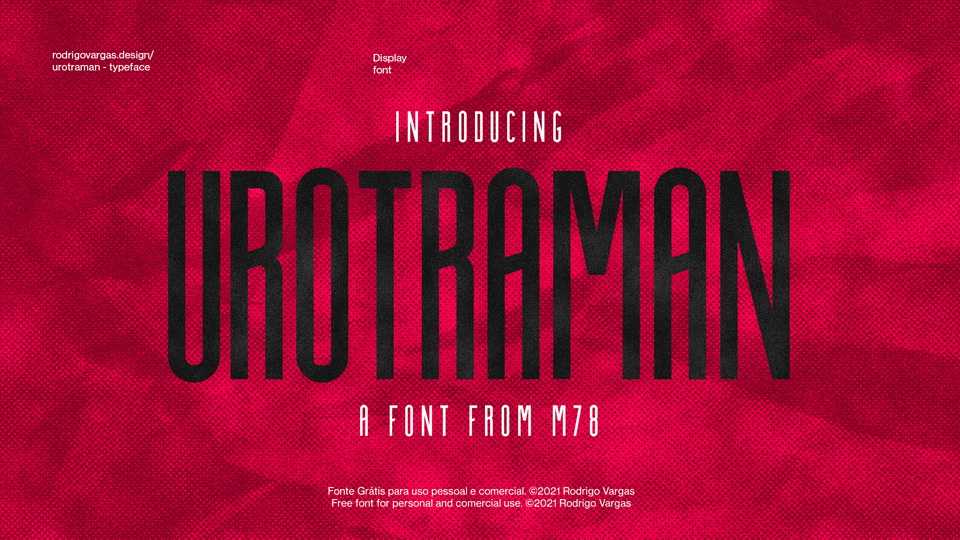
Download Urotraman font, a condensed display typeface, created to pay homage to the work of Eiji Tsuburaya. Urotraman font is perfect for titles and giving power in his texts.
Designer: Rodrigo Vargas